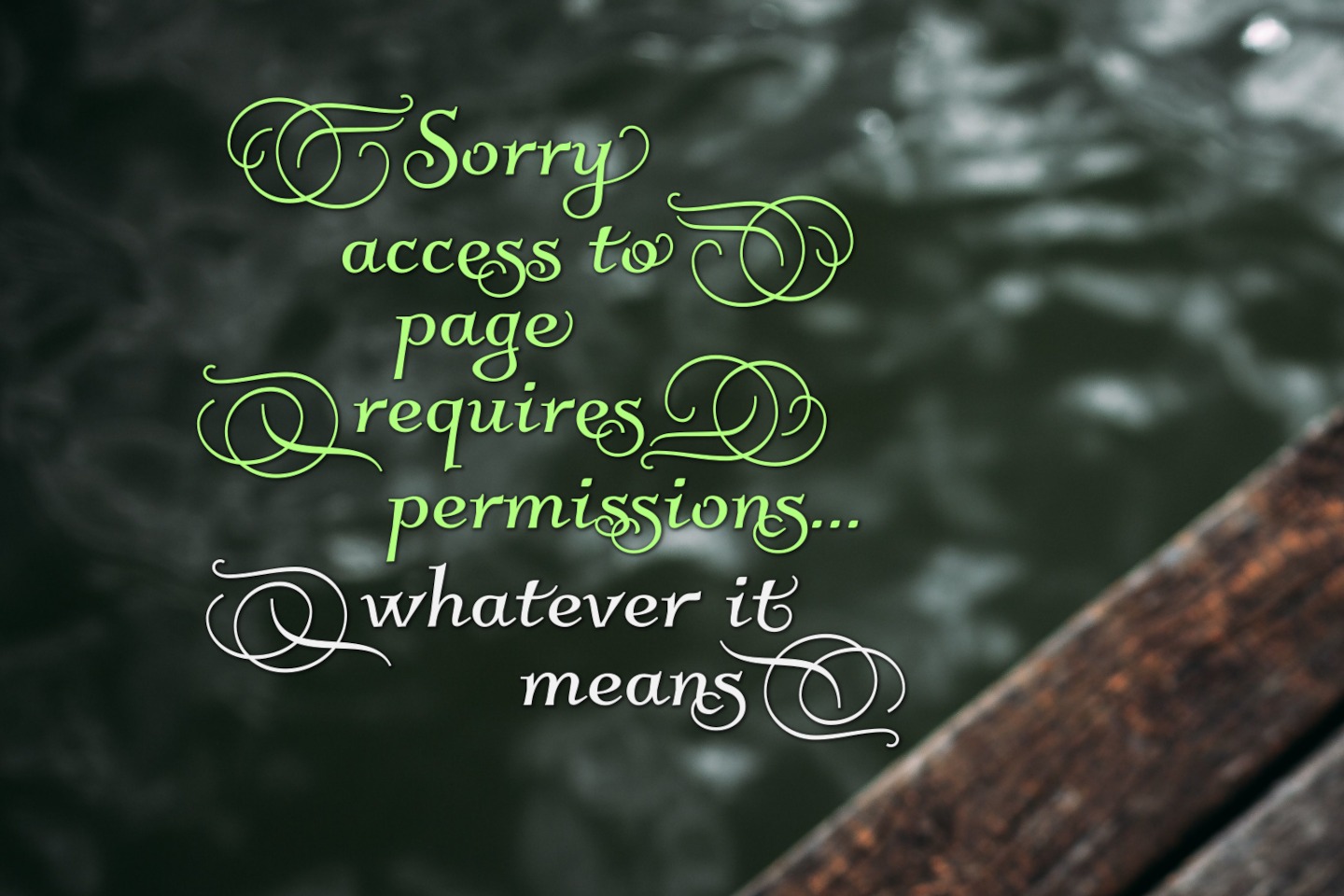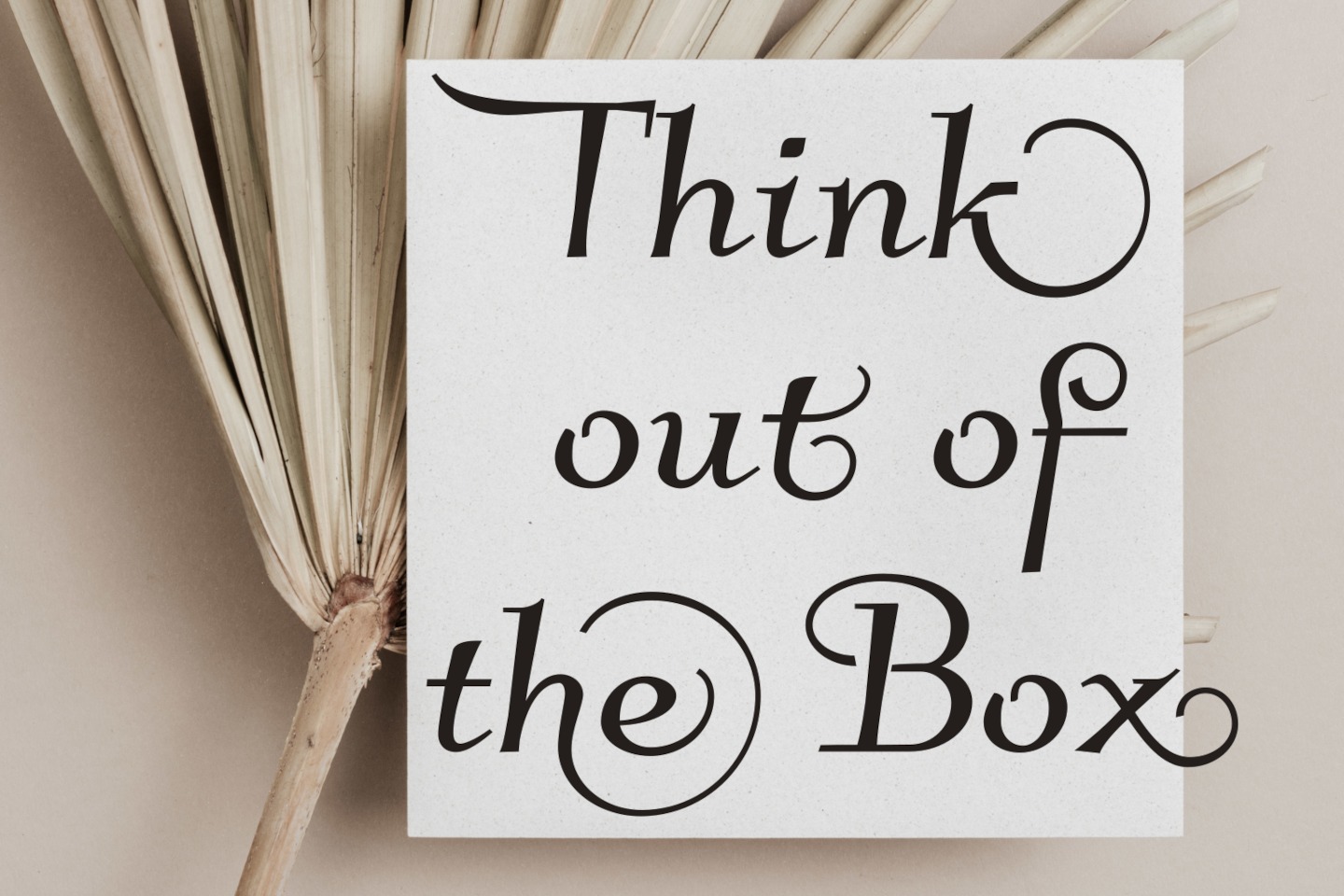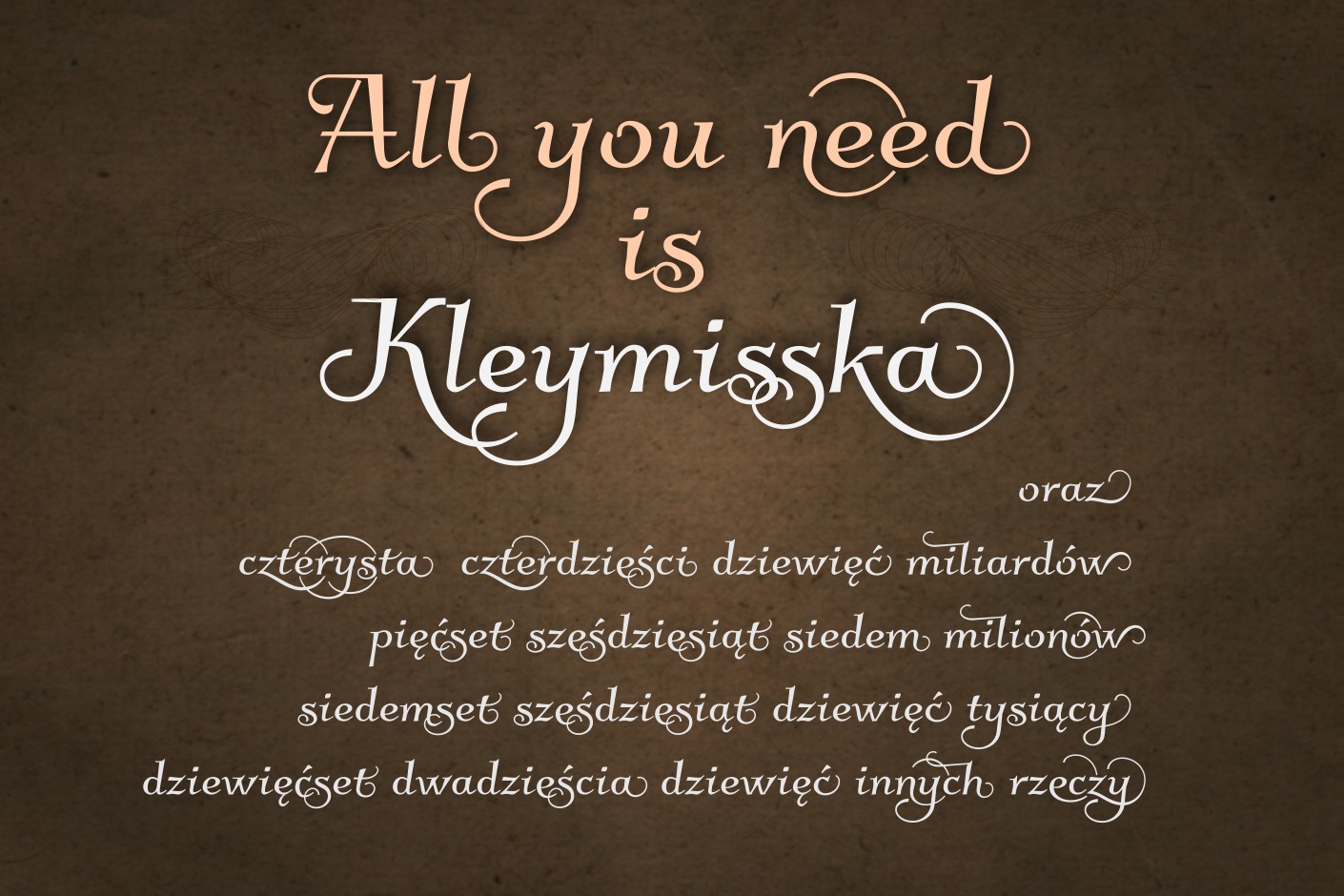
Kleymisska Font
Kleymisska Display Font
This is a free vintage serif typeface crafted & designed by gluk. Perfectly supports your creativity in making various design projects such as logo designs, branding, posters, magazines, labels, merchandise, invitations, long and short texts, and many of your other needs.